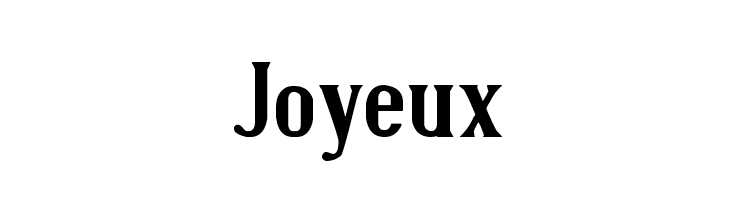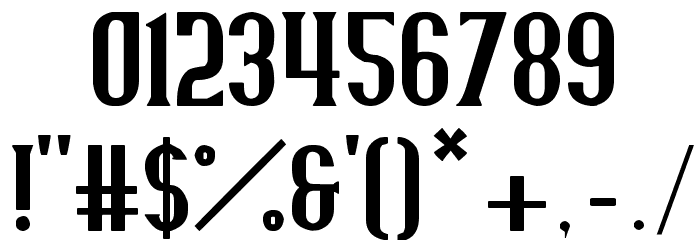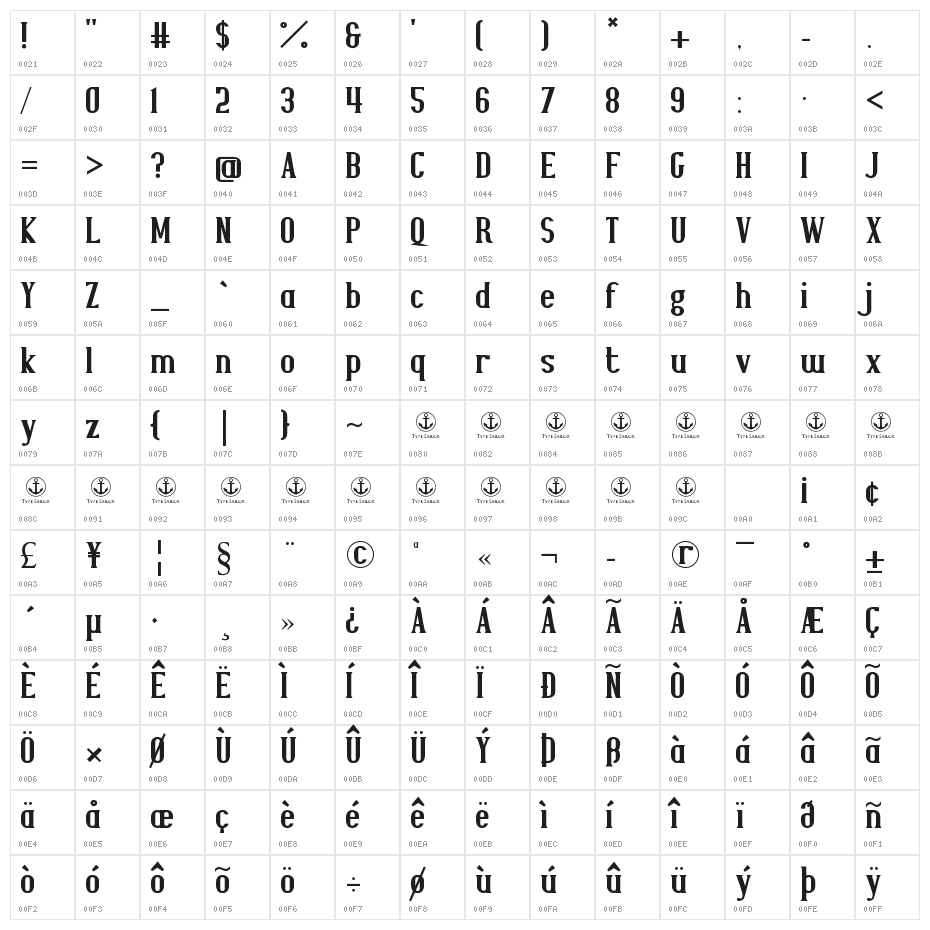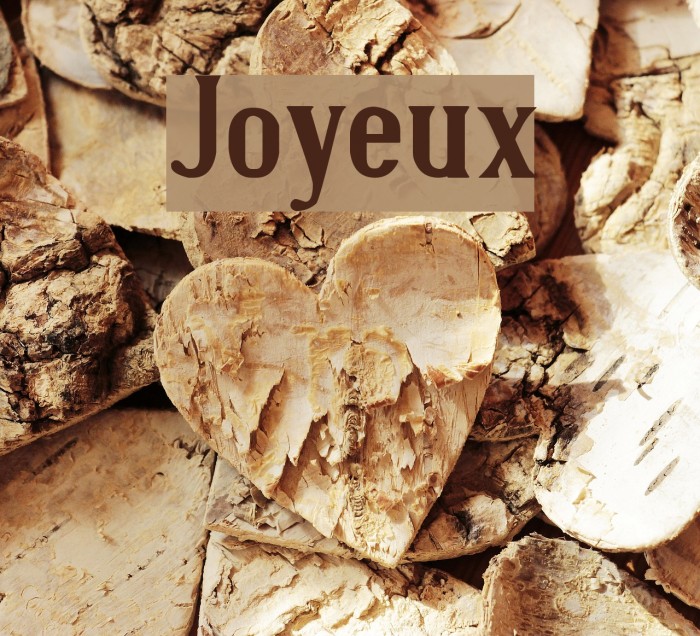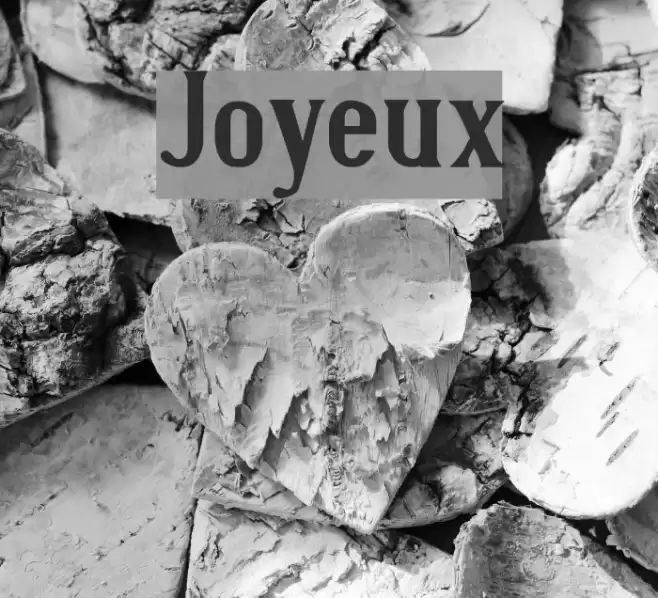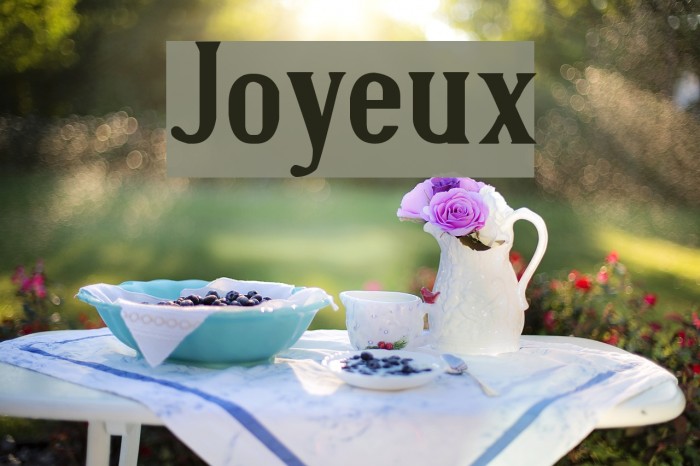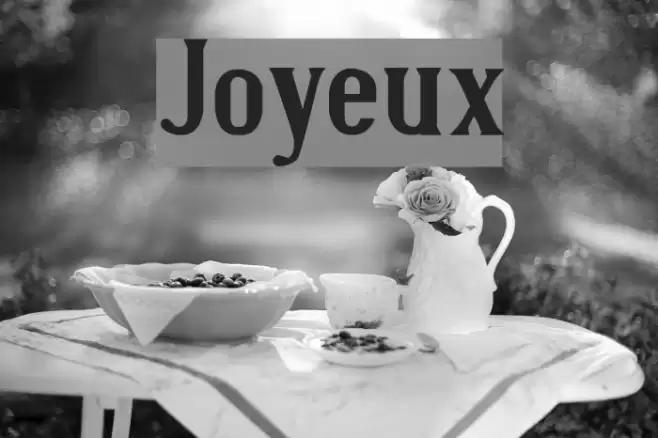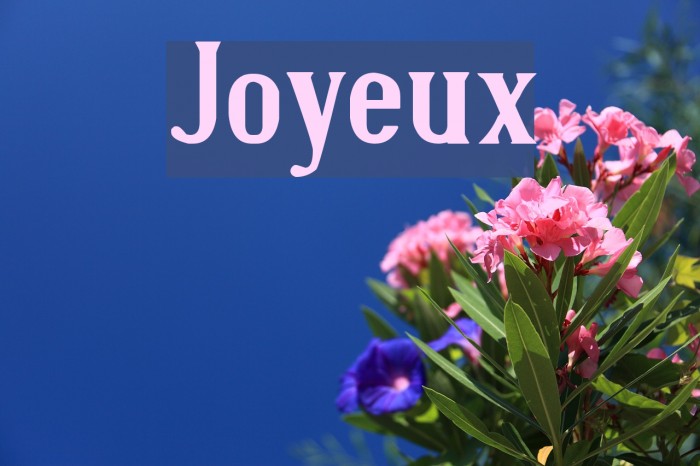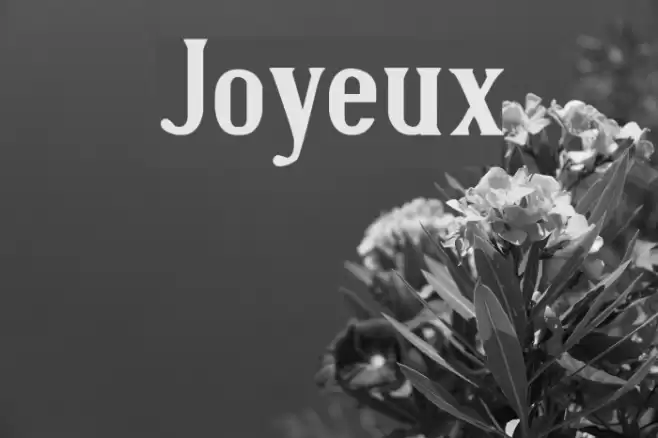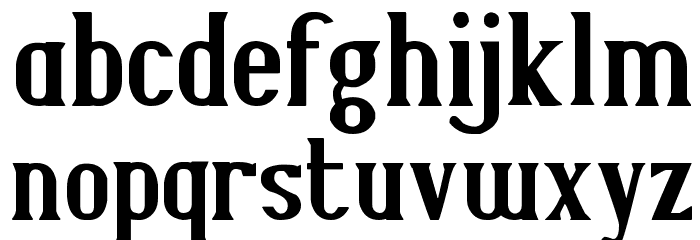
Joyeux Font
Joyeux Description
This font features a bold and striking design with a strong presence. The uppercase letters are tall and slightly condensed, giving a sense of authority and impact. The lowercase letters maintain a consistent style, with rounded edges that soften the overall look. Numbers are clear and easy to read, matching the boldness of the alphabet. Special characters are well-integrated, maintaining the font's cohesive style. The font's design is reminiscent of vintage signage, making it suitable for projects that require a classic yet bold statement.
| Proposed Projects | Ideal for posters, branding, headlines, and any design requiring a vintage or classic touch. |